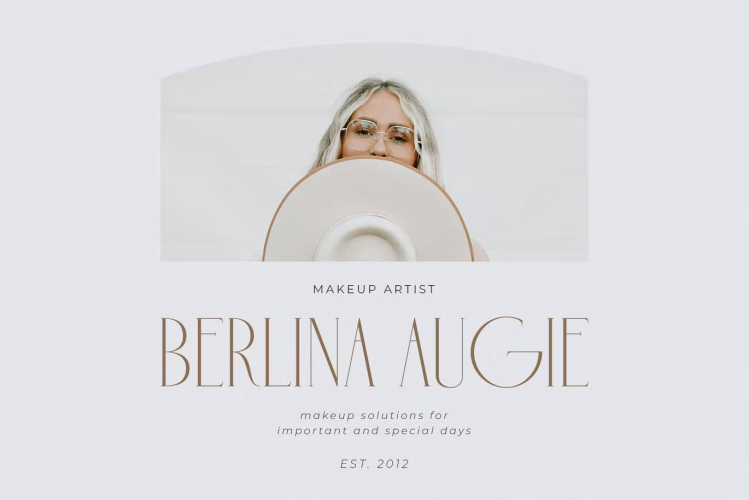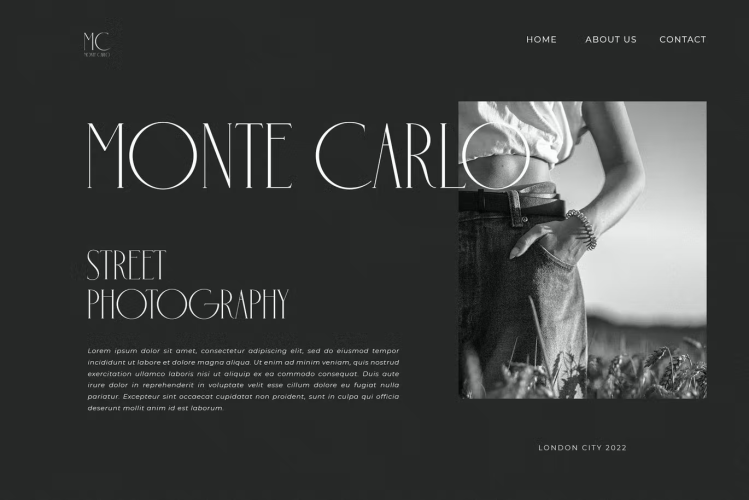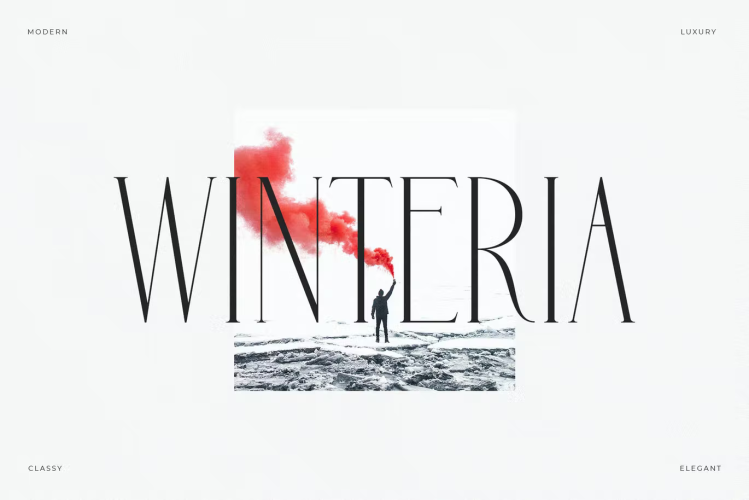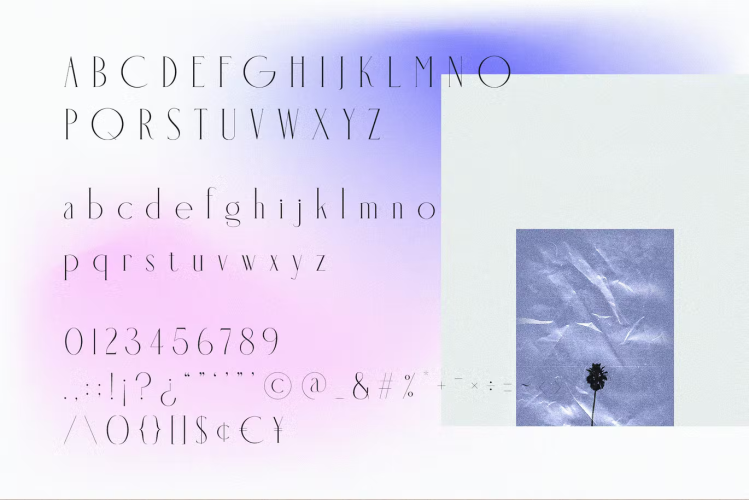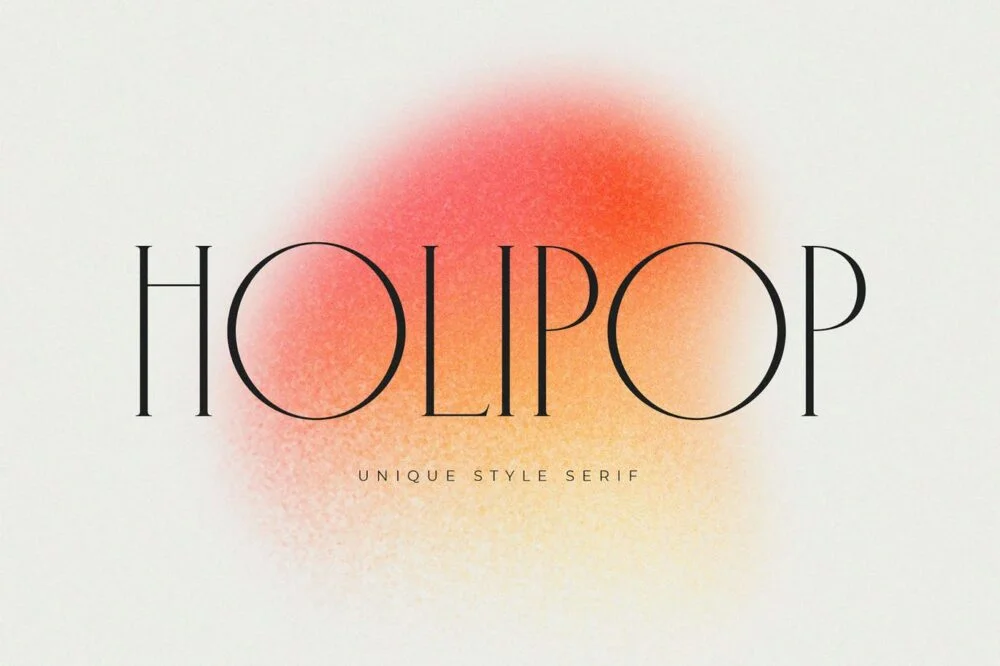
Holipop Font
Holipop Font is a modern and elegant typeface, best used as a display for headings, logos, branding, magazines, product packaging and invitations. Holipop come with clean lines and smooth curves give any project an extra touch of class.
Where Holipop Font works best
Fashion & beauty
High-contrast modern serifs like Holipop Font define luxury fashion, cosmetics and editorial brands.
Wedding & lifestyle
Elegant serifs suit invitations, lifestyle blogs and photography portfolios.
Premium packaging
Use Holipop Font for perfume, skincare and boutique packaging.
What is Holipop Font good for?
Holipop Font is a Modern Serif Font typeface tagged Branding, Clean, Editorial, Elegant. It works well for headlines, logos, posters, social media graphics and branding projects that need a distinctive modern serif font look.